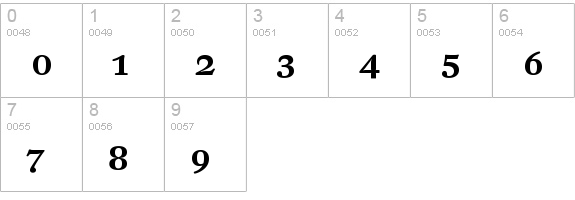
DTL Fleischmann T Medium Caps is a balanced, medium-weight variant in the DTL typeface family \xE2\x80\x94 well suited to sub-headlines, navigation, and balanced editorial work.
The DTL Fleischmann T Medium Caps font is a timeless and elegant typeface that exudes sophistication and classic charm. With its medium weight and distinctive capital letters, this font is perfect for creating eye-catching headlines and titles that demand attention. Its clean lines and balanced proportions make it easy to read, making it ideal for a wide range of design projects. What sets the DTL Fleischmann T Medium Caps font apart is that it is available for free download at FontsMarket.com. This means that you can easily access and use this high-quality font in your projects without any cost. Whether you're designing a poster, flyer, logo, or any other creative piece, the DTL Fleischmann T Medium Caps font is sure to add a touch of elegance and sophistication to your work. Download it today and elevate your designs with this stunning typeface.